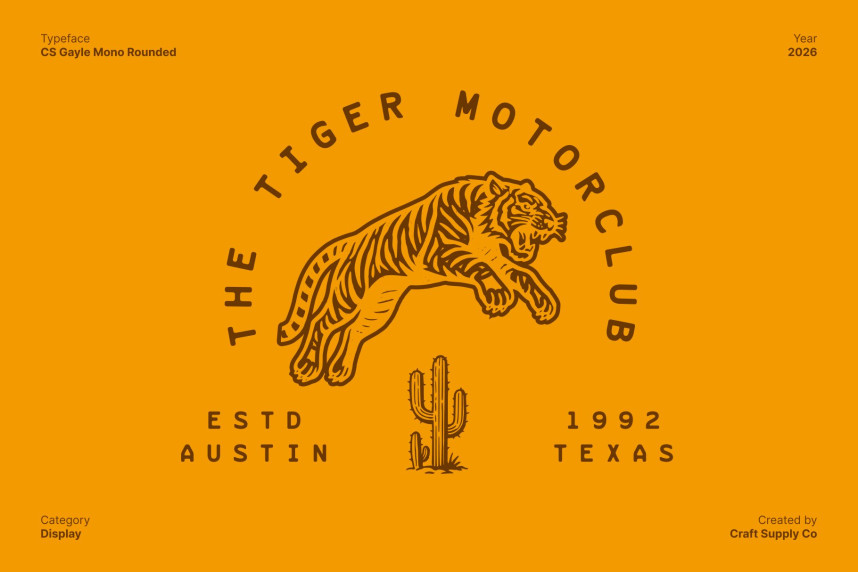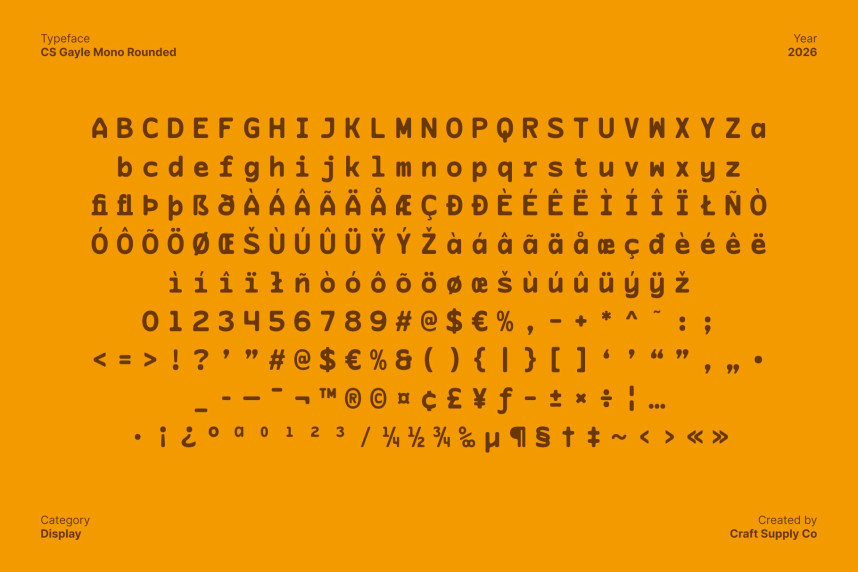
CS Gayle Mono Rounded Font
CS Gayle Mono Rounded Font. Modern Monospaced Sans Serif Typeface: Simple Clarity with a Soft, Modern Touch Clean Simplicity, Clear Structure. This is a modern monospaced sans serif typeface designed to deliver clarity, balance, and ease of reading. Its clean construction and consistent letter widths ensure excellent legibility, while rounded corners soften the overall appearance, creating a calm and approachable visual tone.